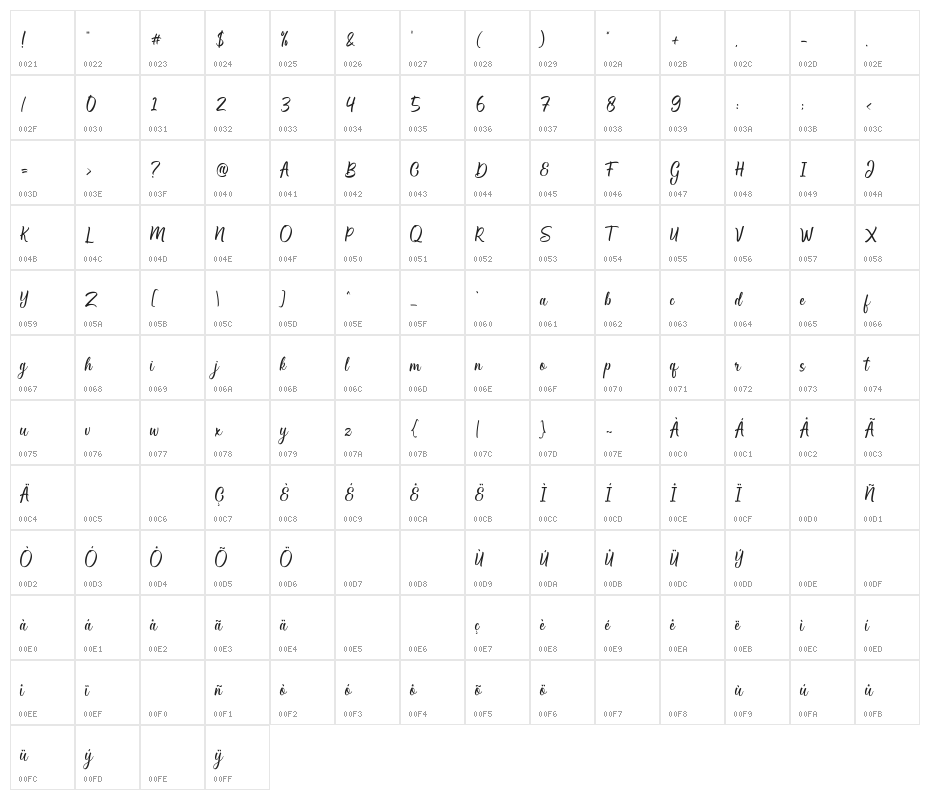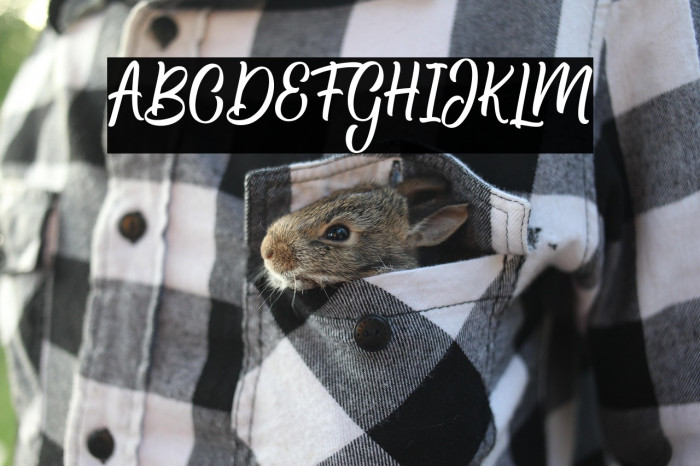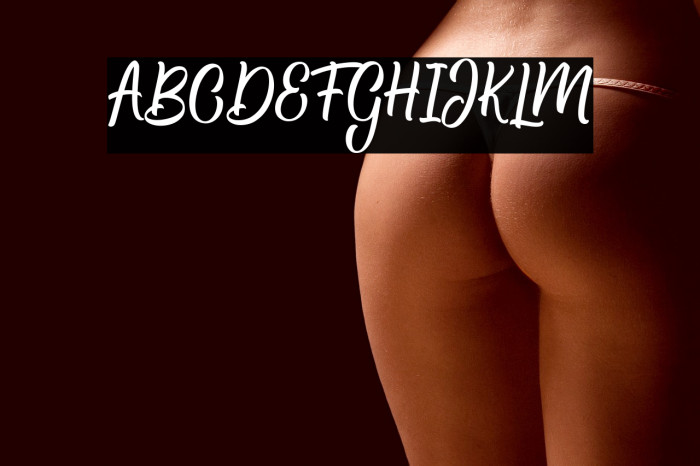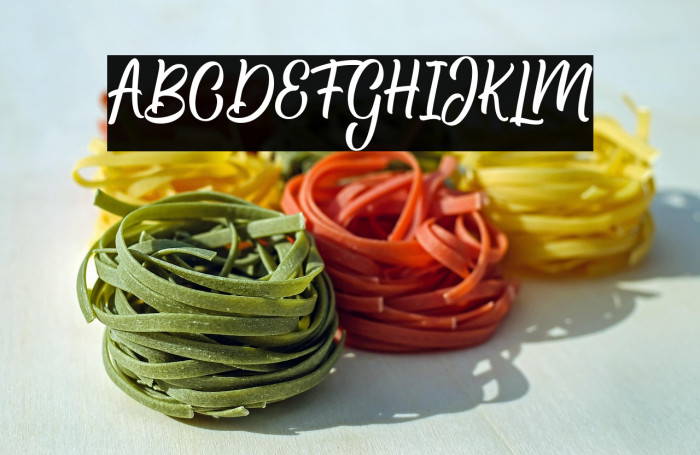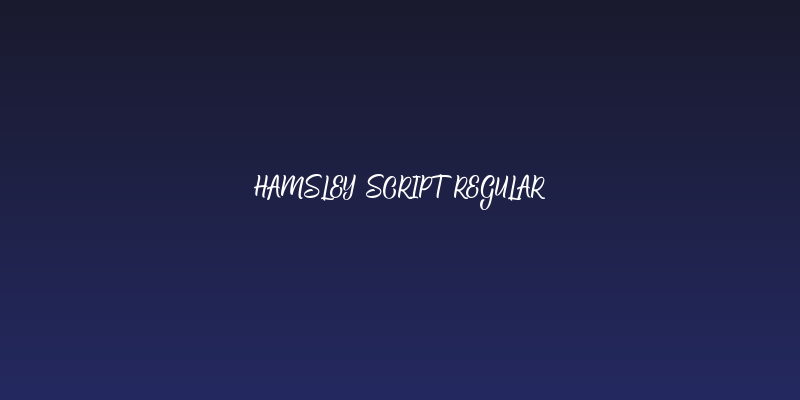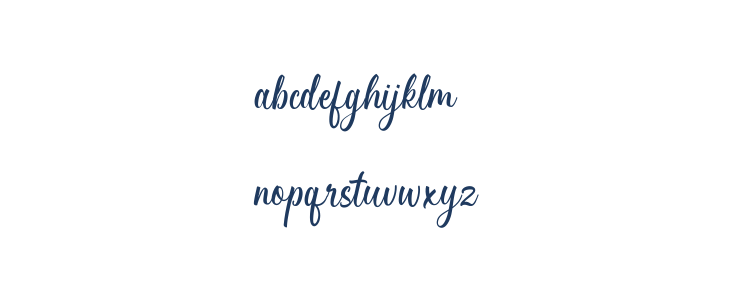
Hamsley Script Regular Font
Hamsley Script Regular Description
This font features a flowing, elegant script style with a handwritten appearance. The characters are connected, giving it a cohesive and fluid look. The uppercase letters are ornate with slight flourishes, while the lowercase letters maintain a consistent, smooth flow. The numerals are clear and maintain the script style, making them easily readable. Special characters are integrated seamlessly, maintaining the overall aesthetic. The font exudes a sense of sophistication and grace, making it suitable for formal and creative applications.
Overall StyleElegant, Sophisticated
Use CaseLogos, Invitations, Decorative text
Proposed ProjectsIdeal for wedding invitations, greeting cards, branding, and elegant packaging designs.